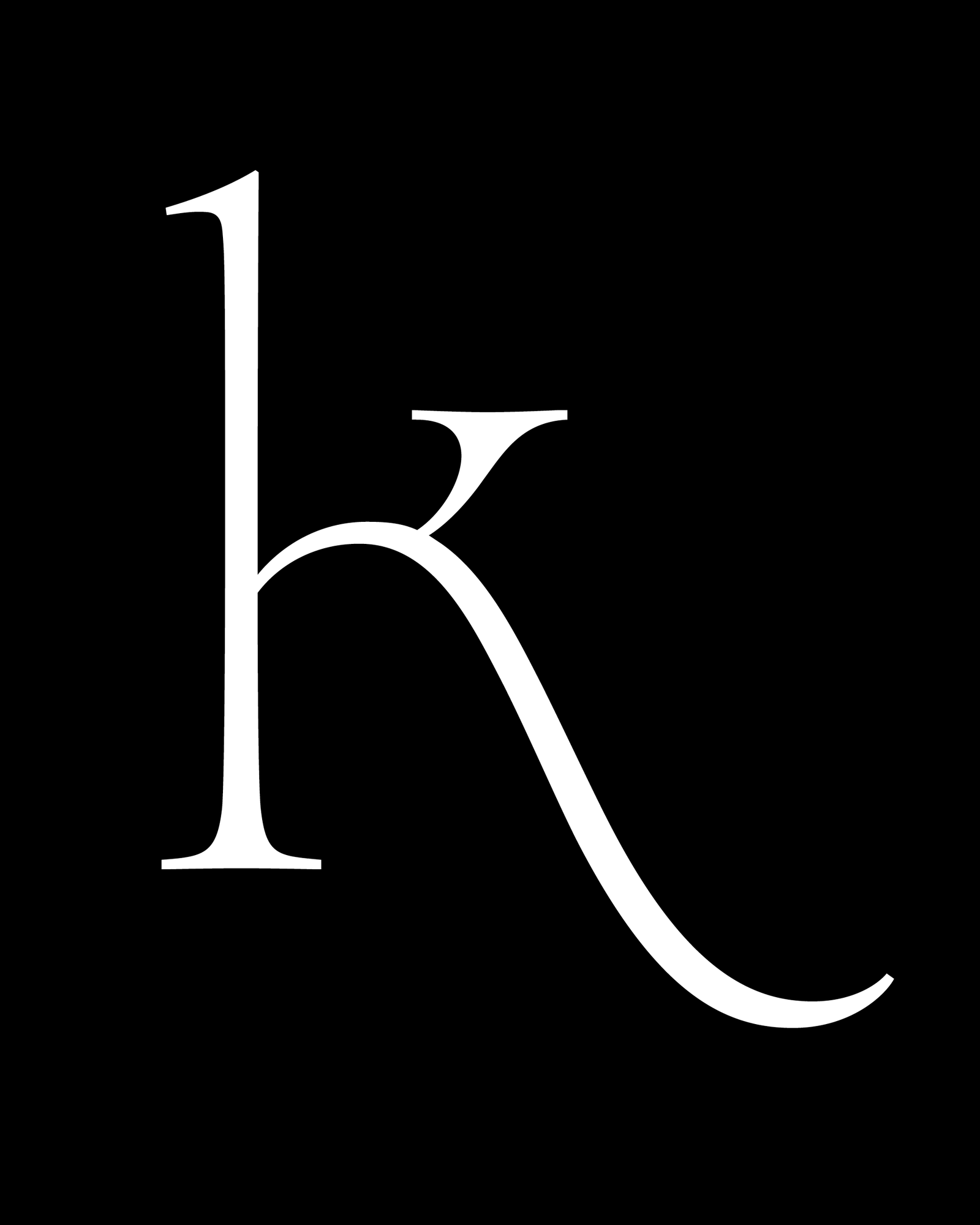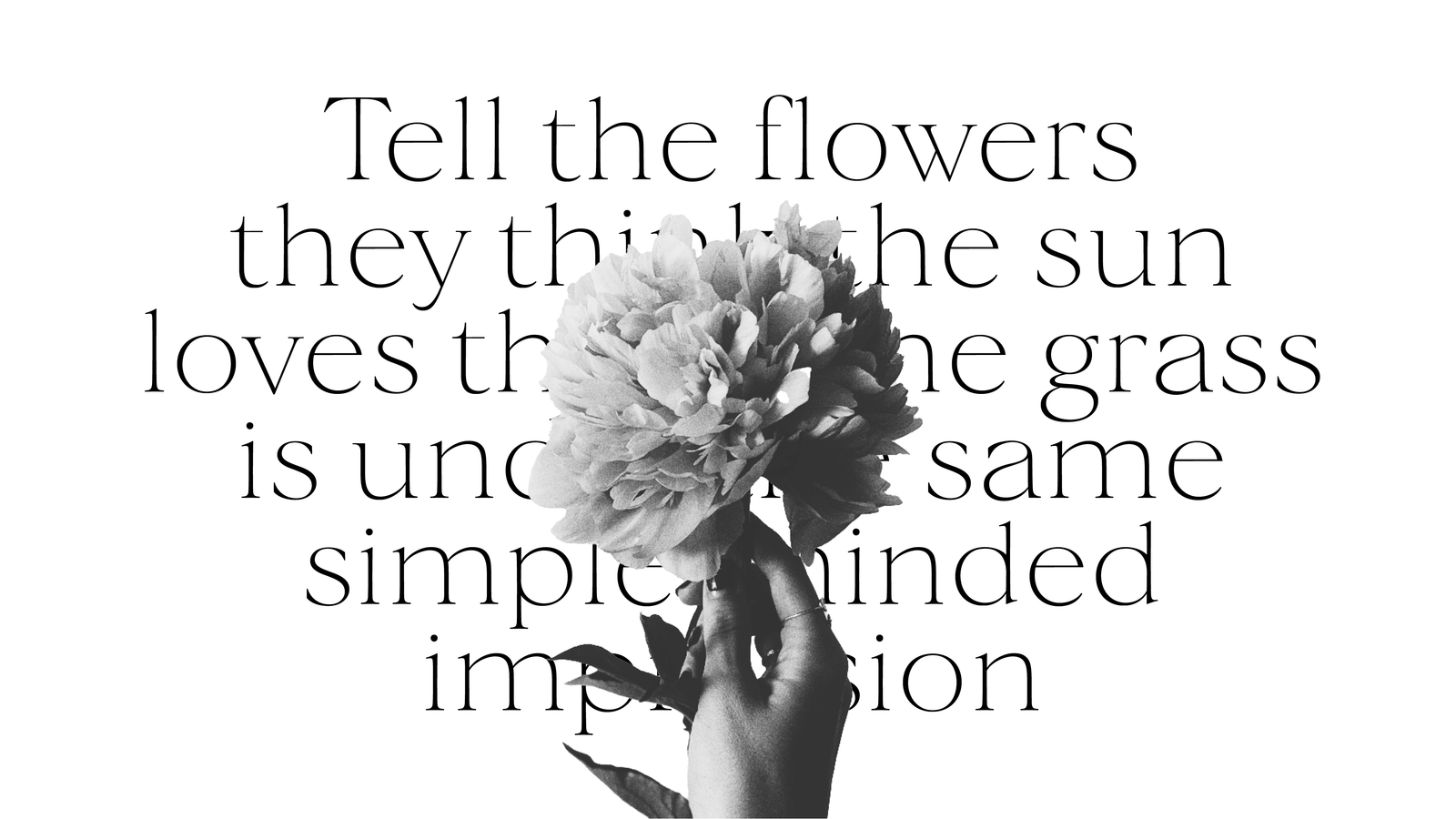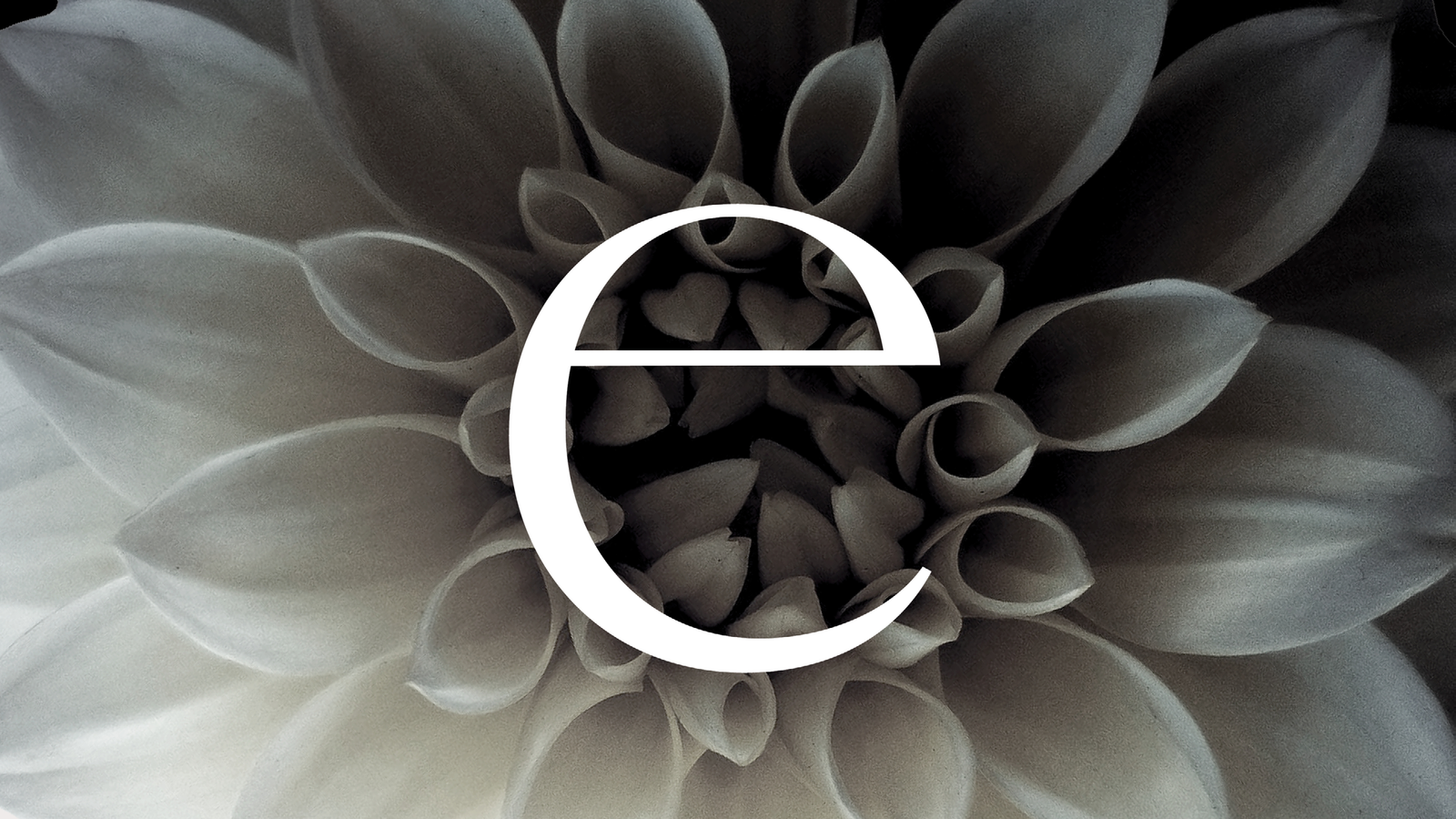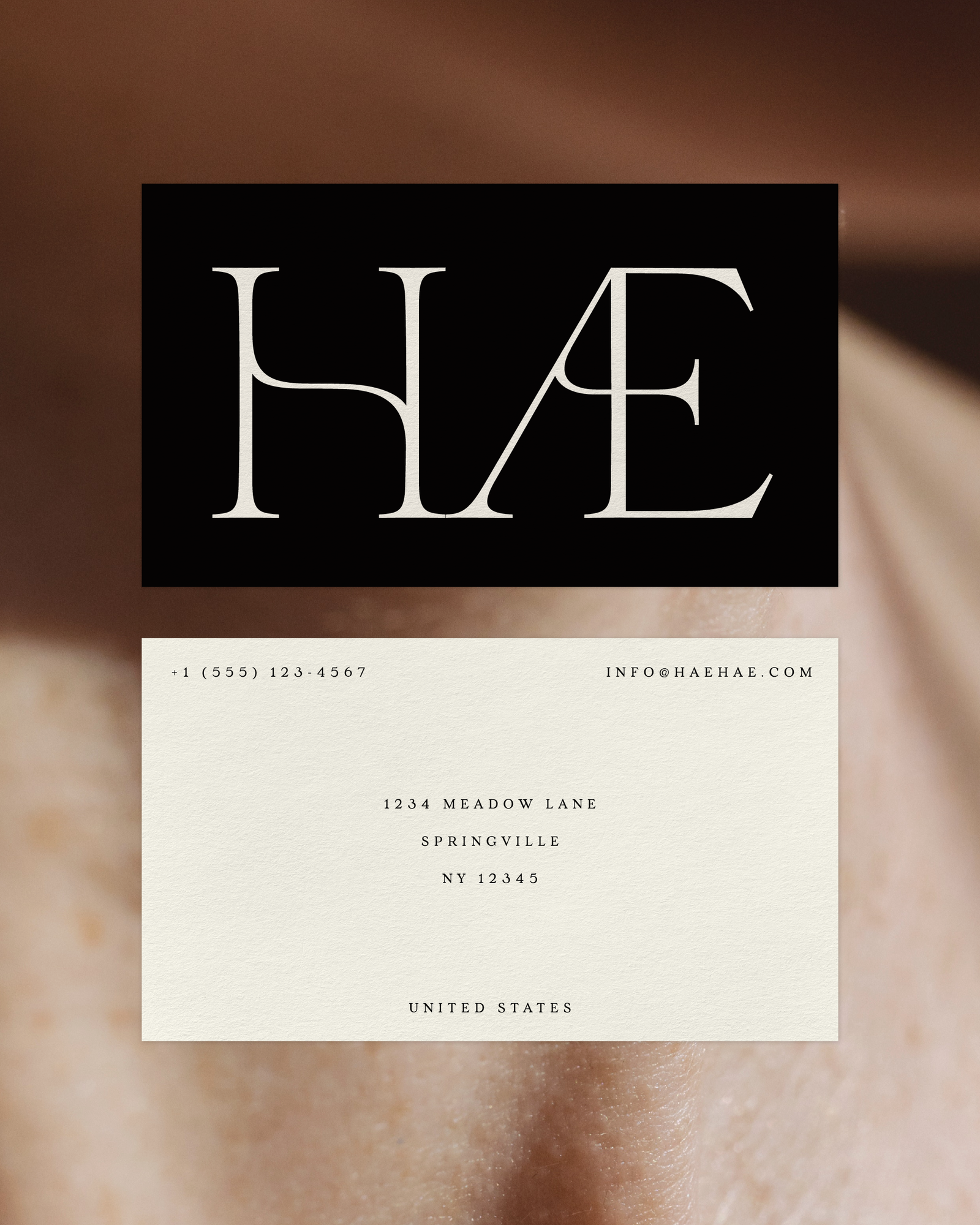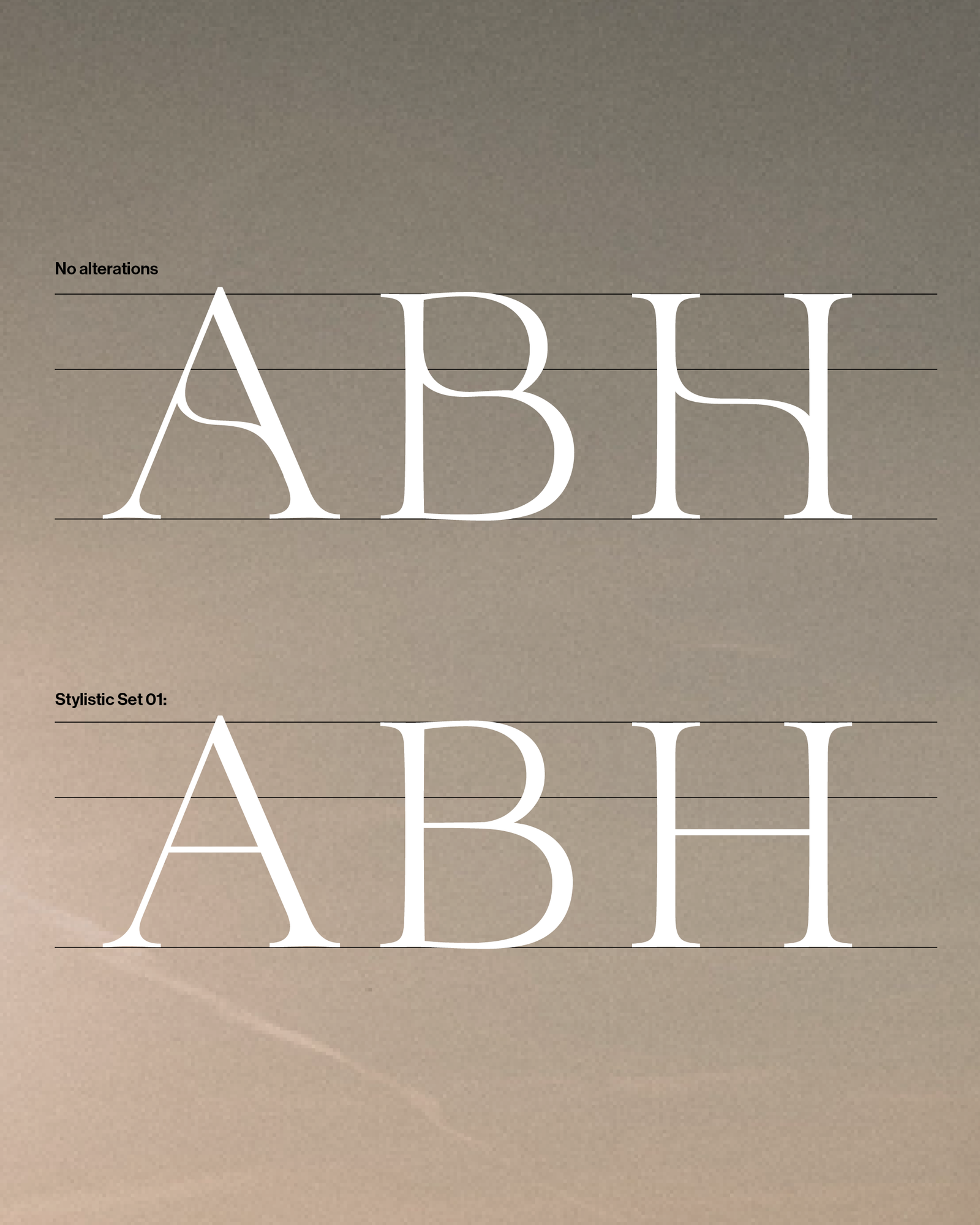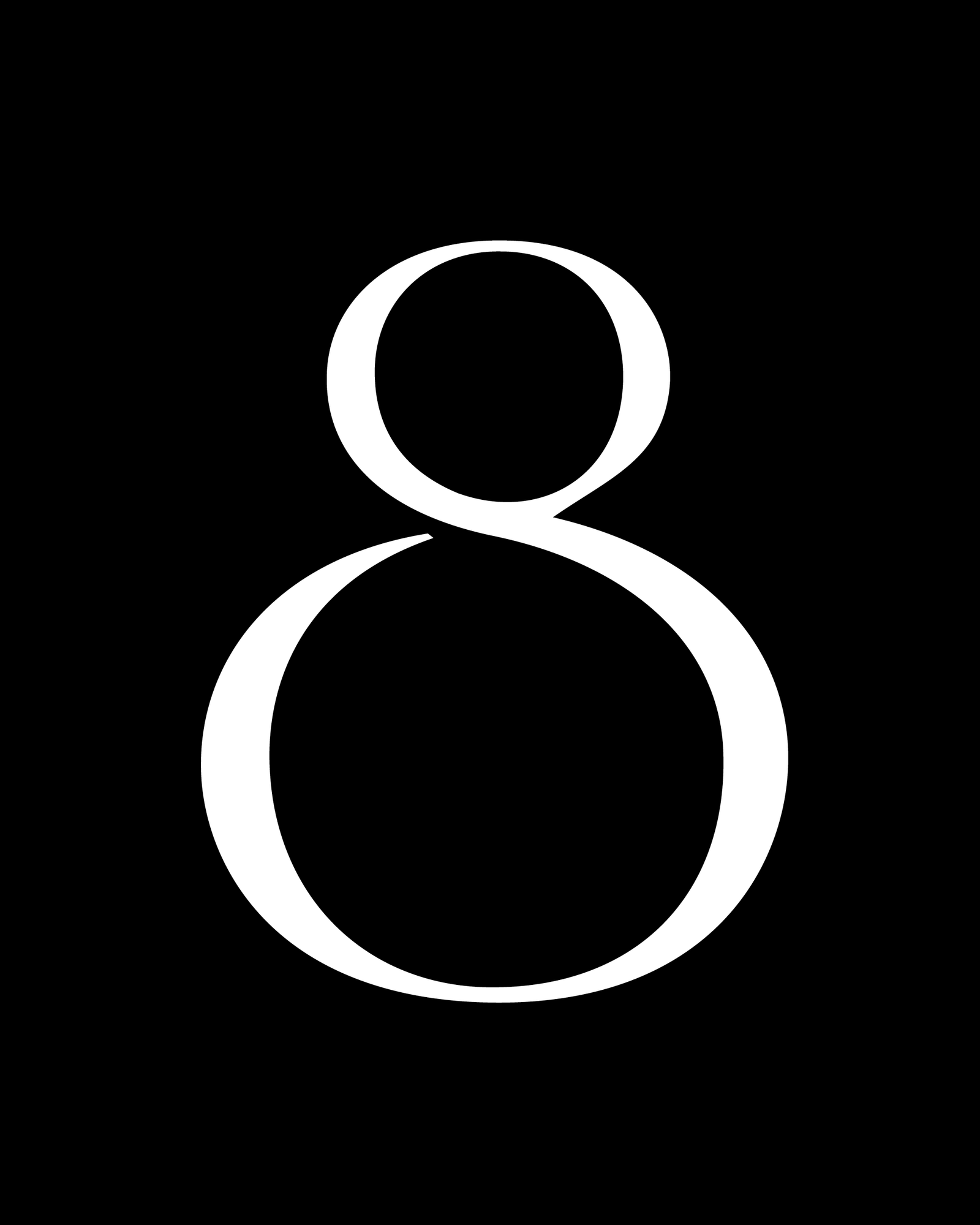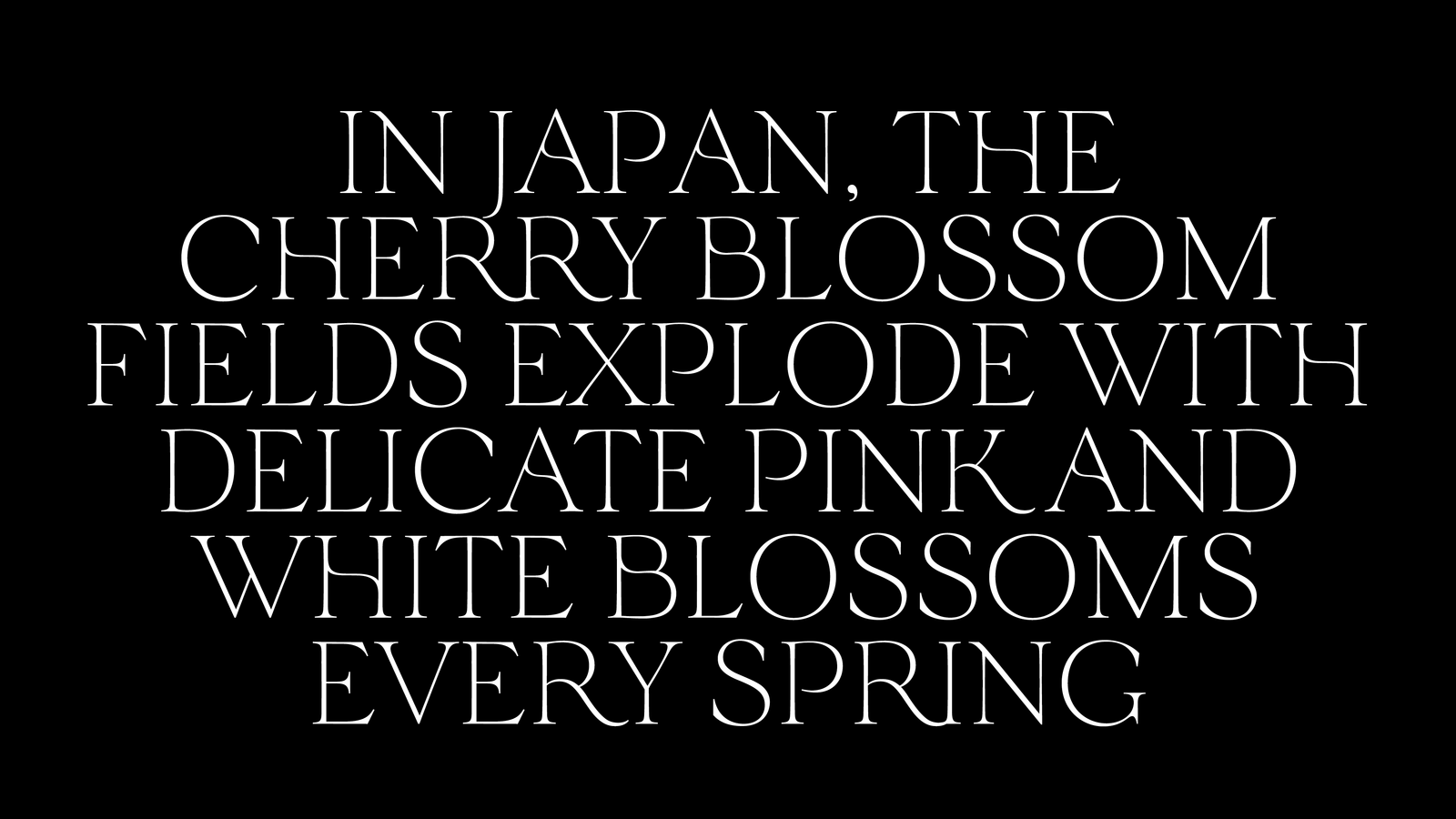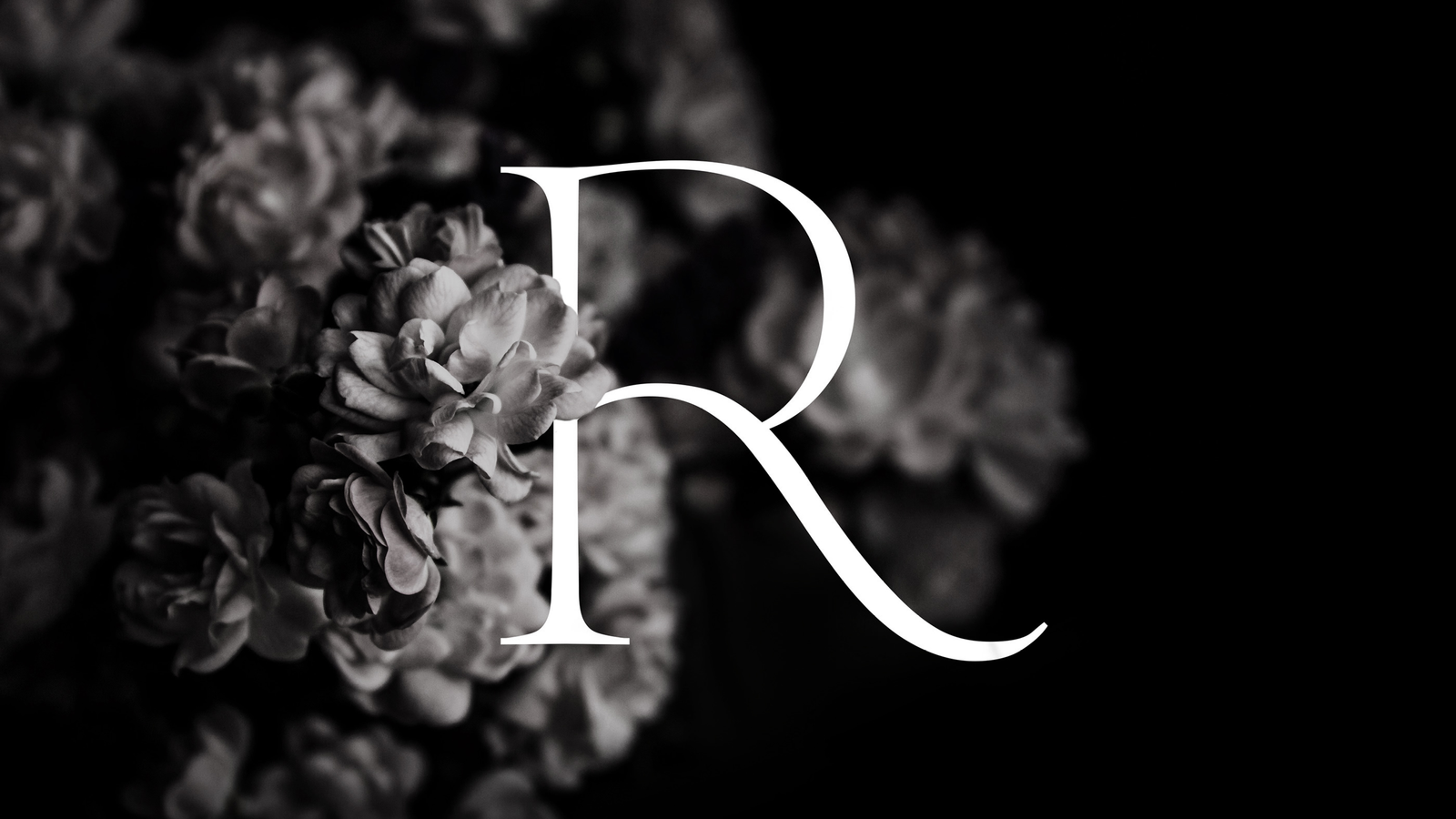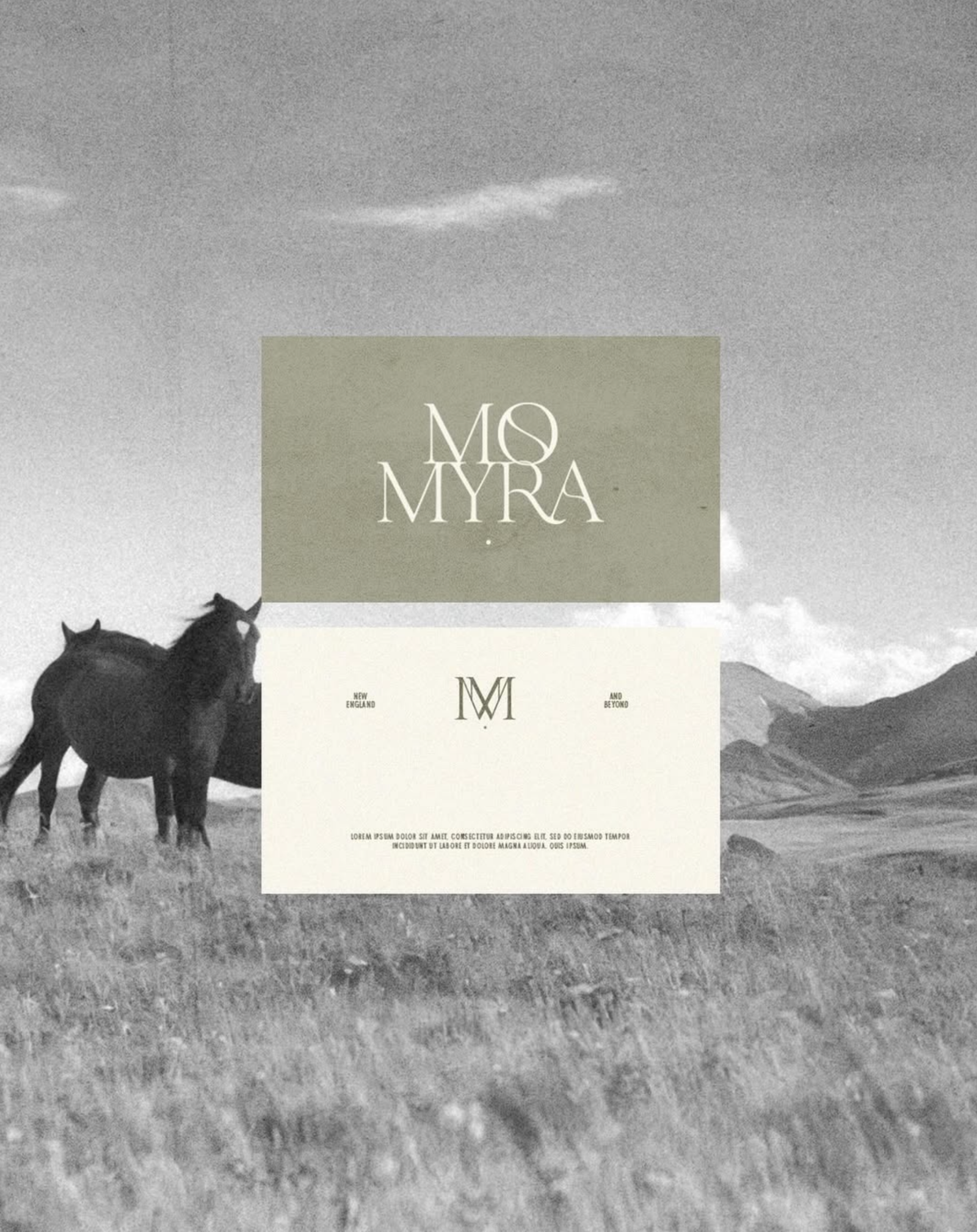
Velour
Velour is an elegant display typeface, with thin, bracketed serifs. The typeface’s main features are the curved crossbar on ‘A’ and ‘H’, the long, sophisticated legs of ‘K’ and ‘R’ including an alternative ‘k’ automatically substituted in appropriate places, providing a consistent flow of text and a romantic feel. The typeface comes with a beautiful set of both standard and old-style numerals, two different ampersands and alternates with less complicated letterforms. Velour is available in 6 weights, from Thin to Bold, and supports Western, Central and South Eastern European languages.
Rakel Tómasdóttir